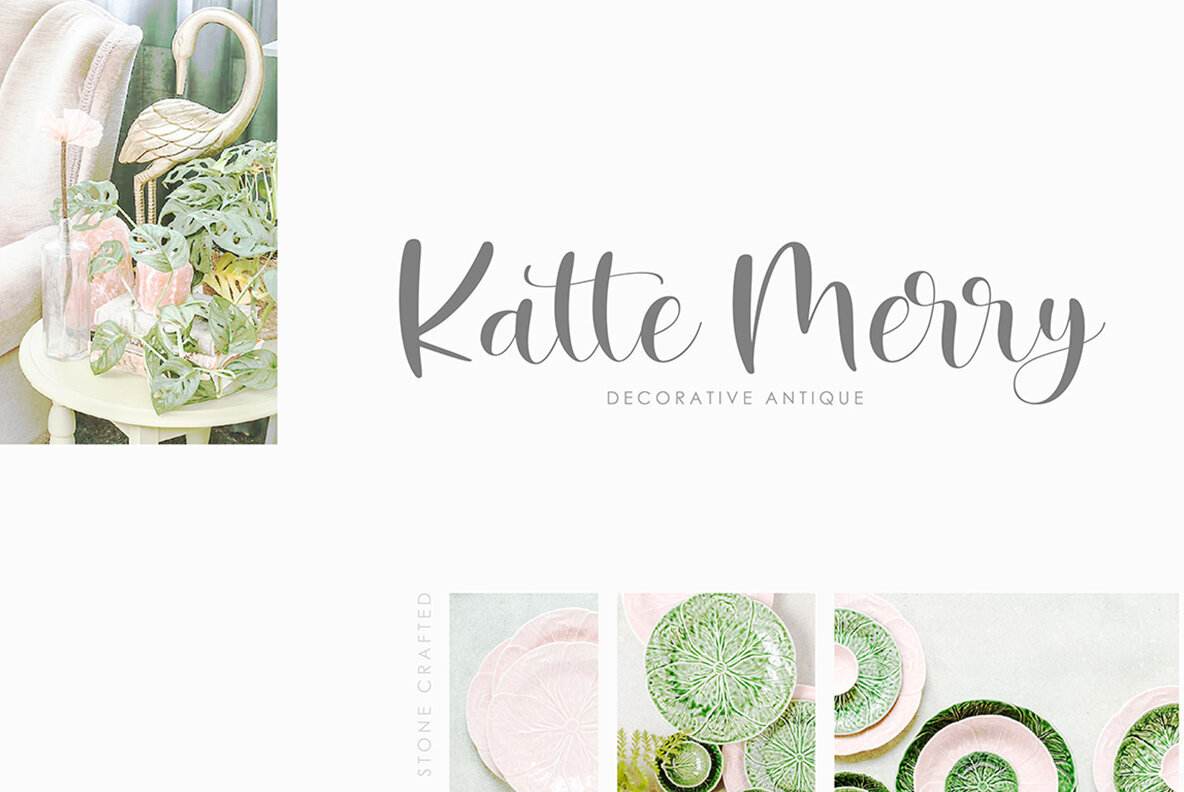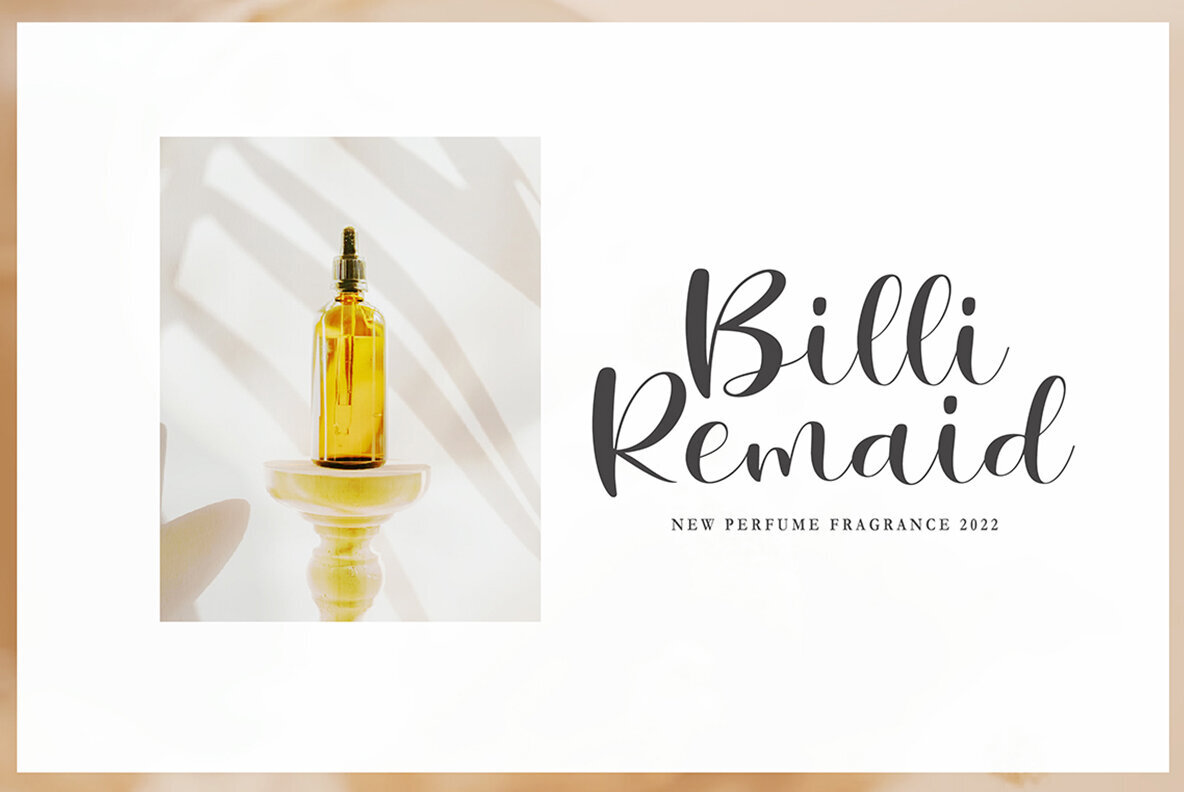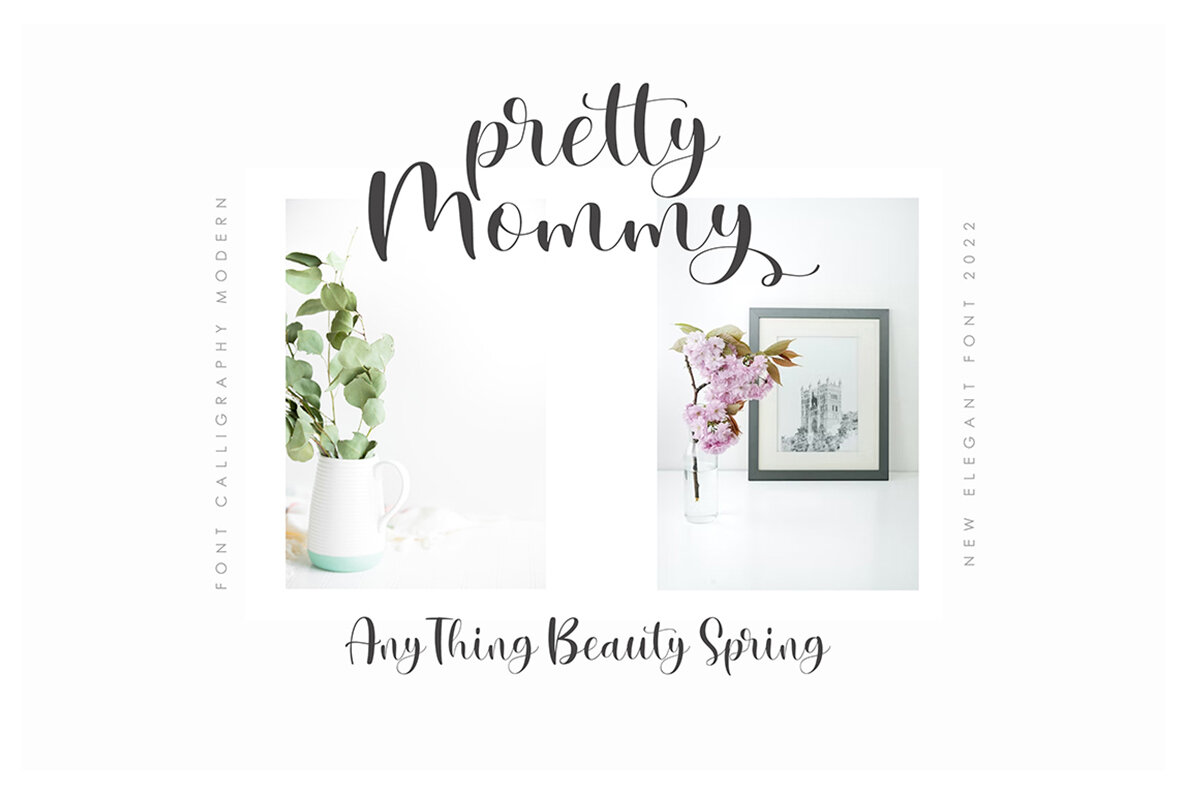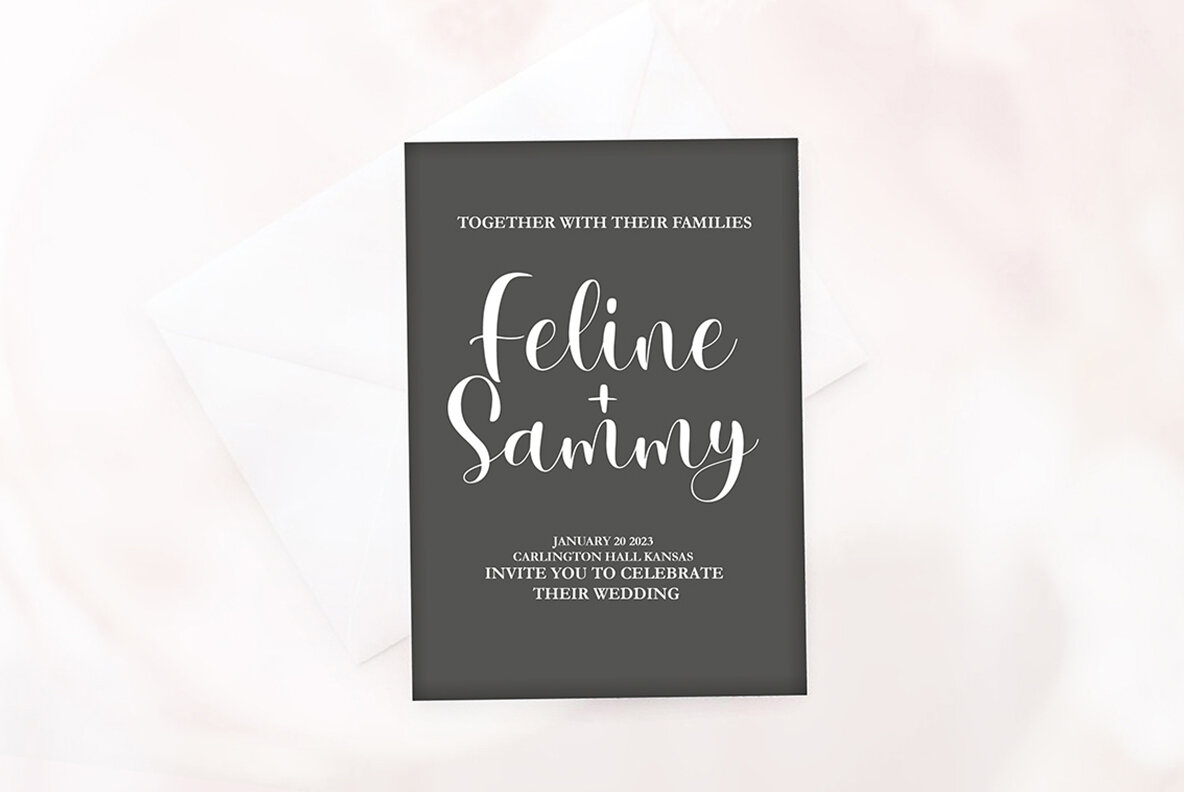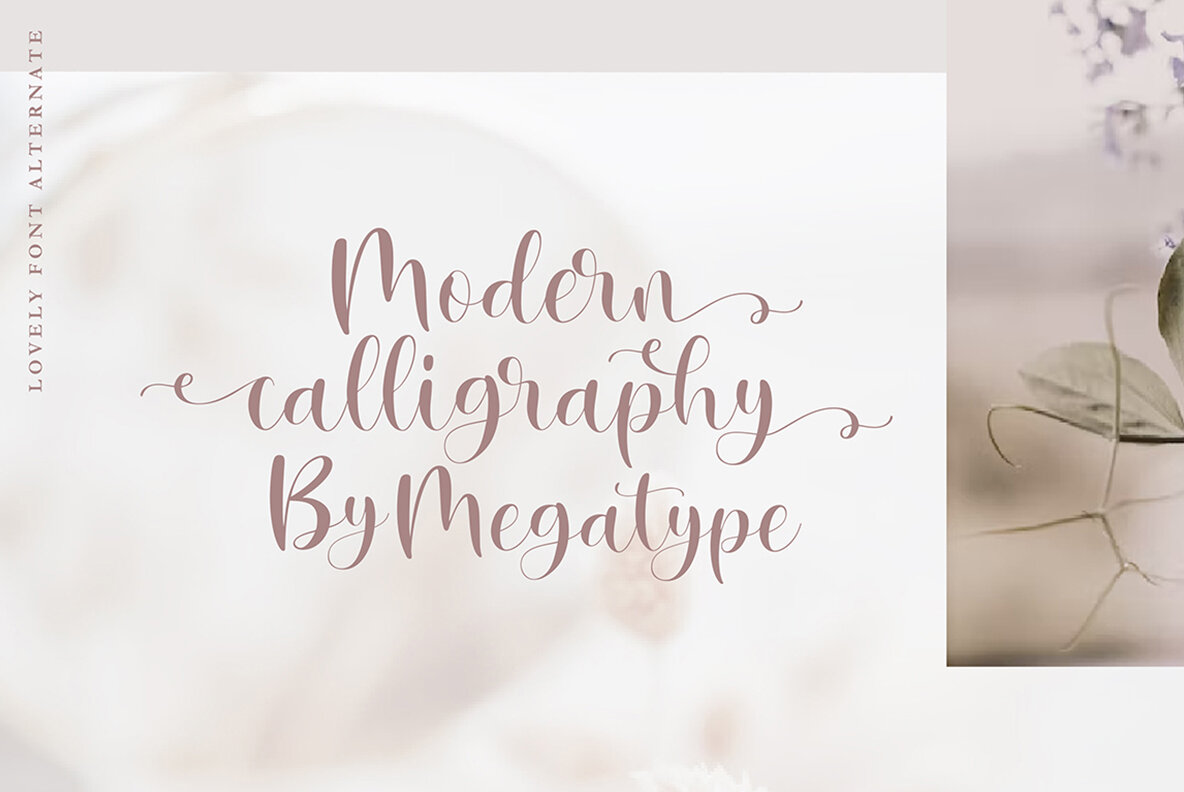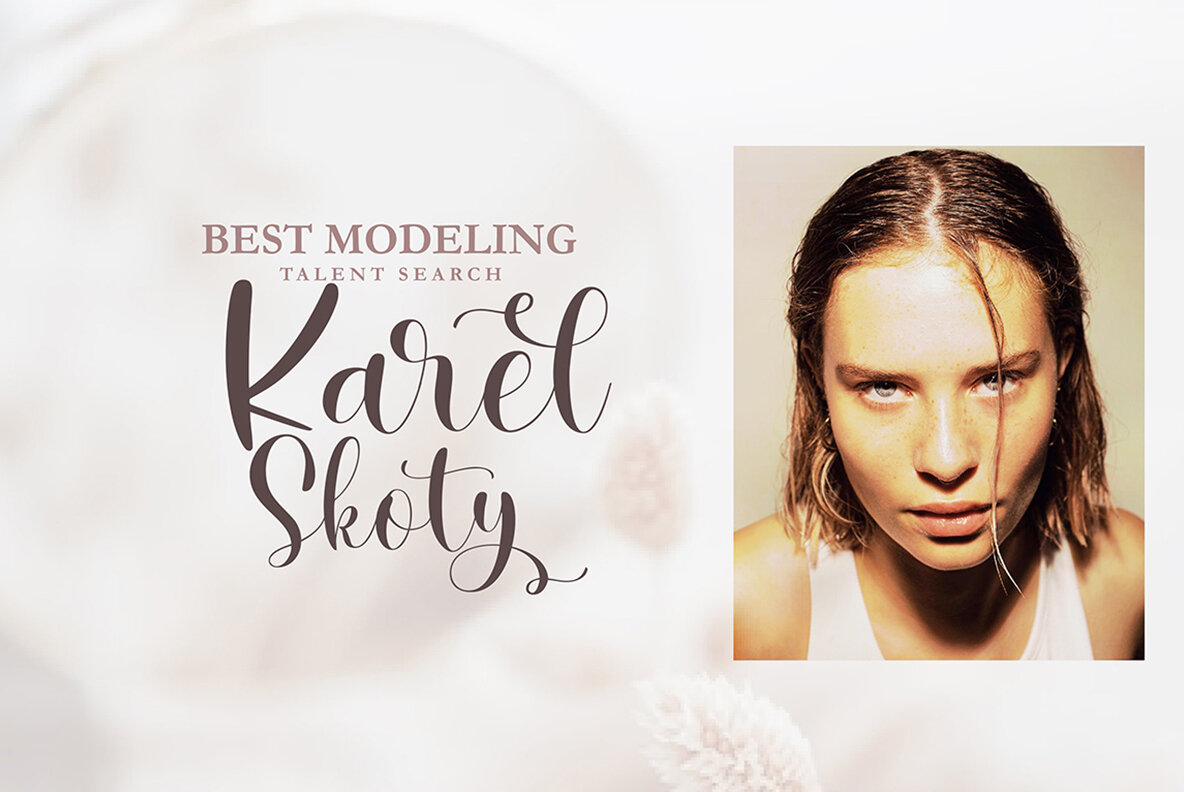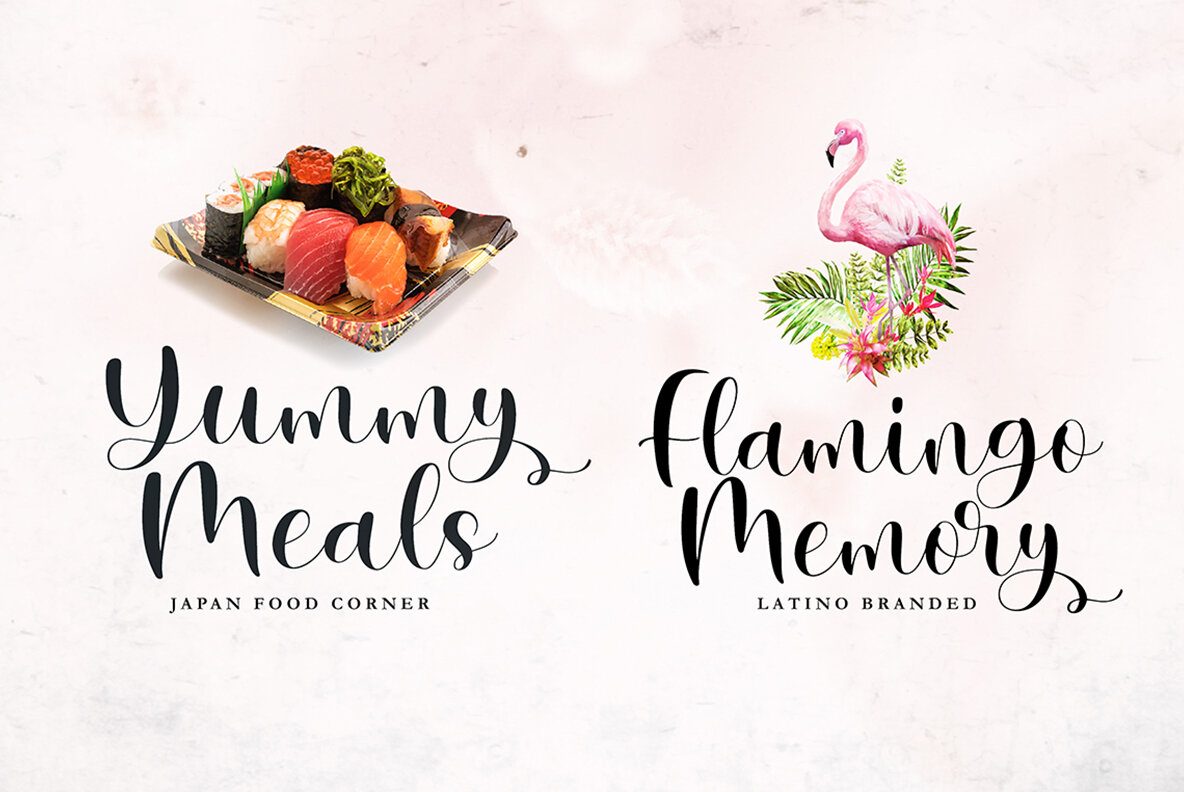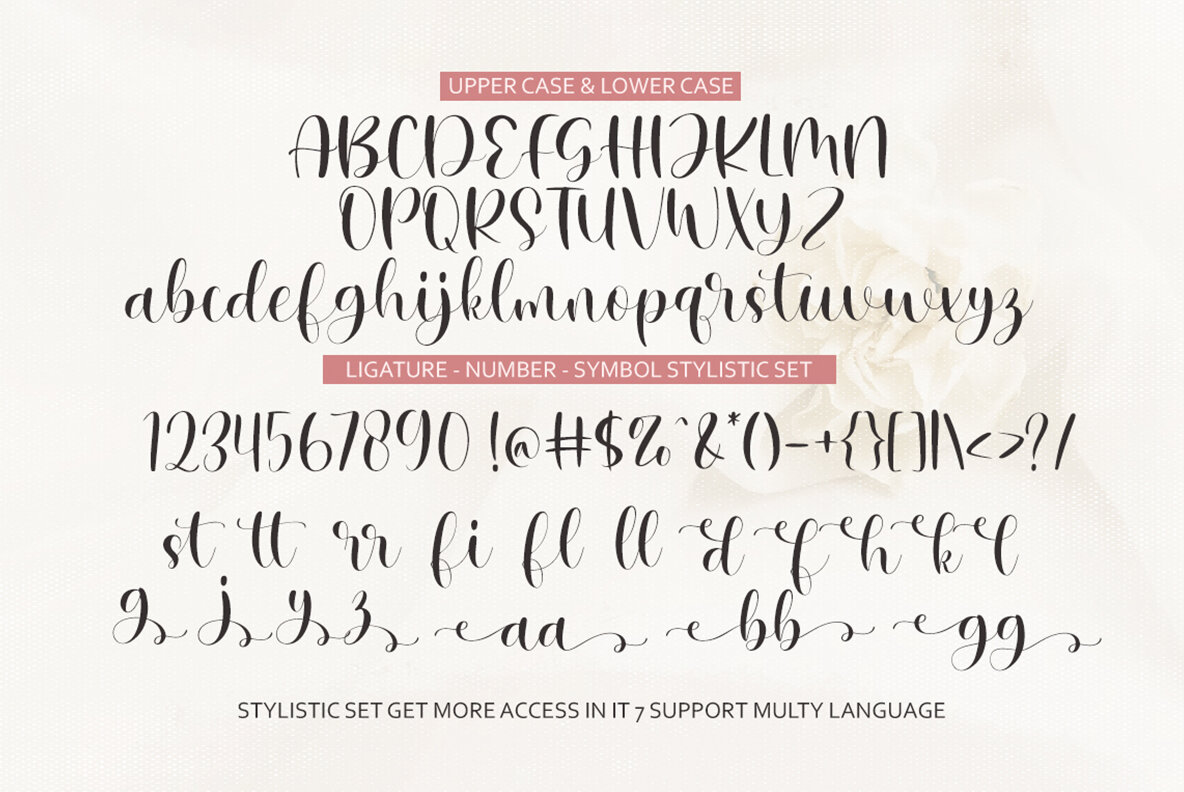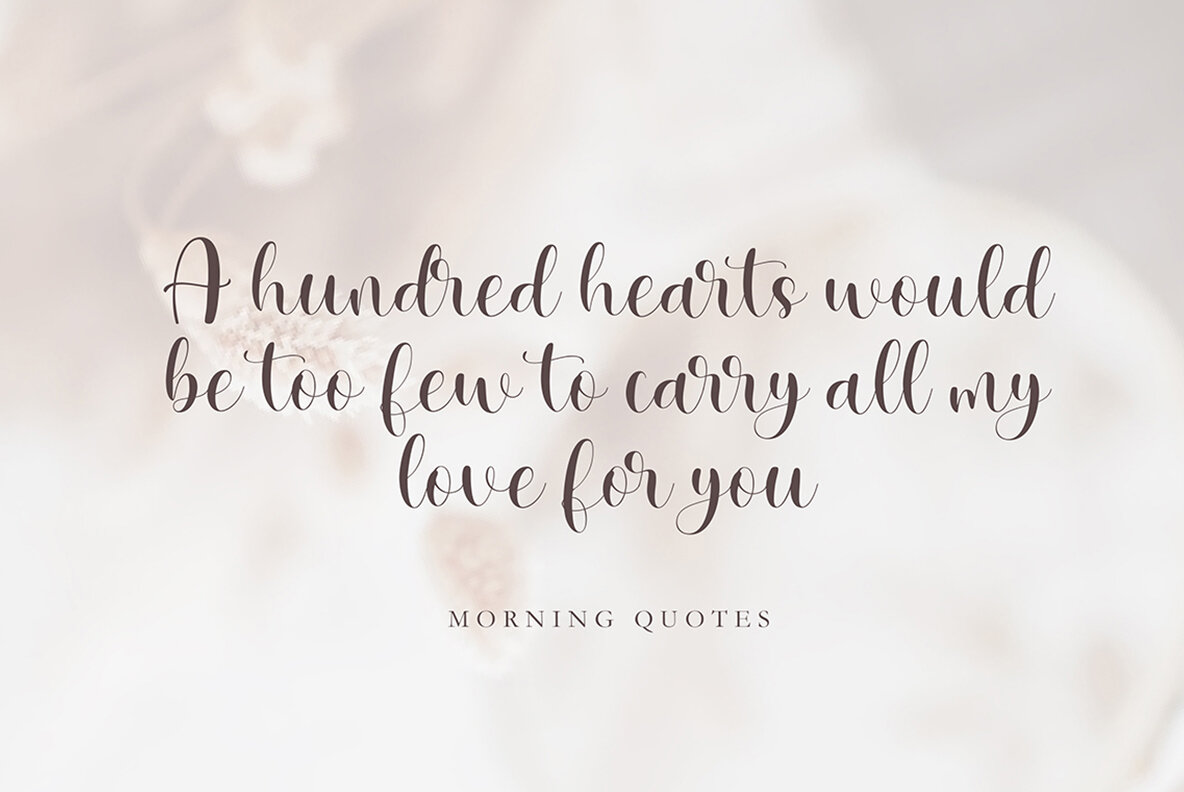
Sampreto Font
Sampreto Regular
Sampreto is an exquisite calligraphic typeface designed for modern aesthetics and sophisticated design projects. Its graceful curves lend a charming touch to various creative endeavors, making it a versatile selection for designers seeking elegance without compromise. This typeface excels in a range of applications, providing distinct sophistication to projects such as branding, wedding invitations, decorations, branding elements, and much more.Sampreto: An Elegant Calligraphy Choice
With Sampreto, you can imbue your designs with elegance and charm, ensuring a visually stunning outcome.